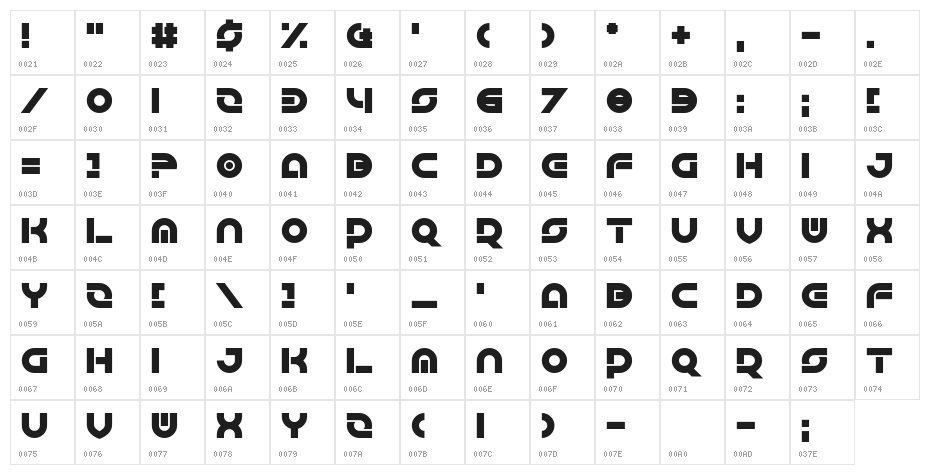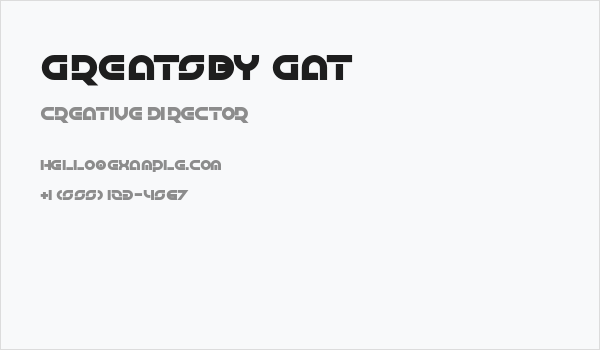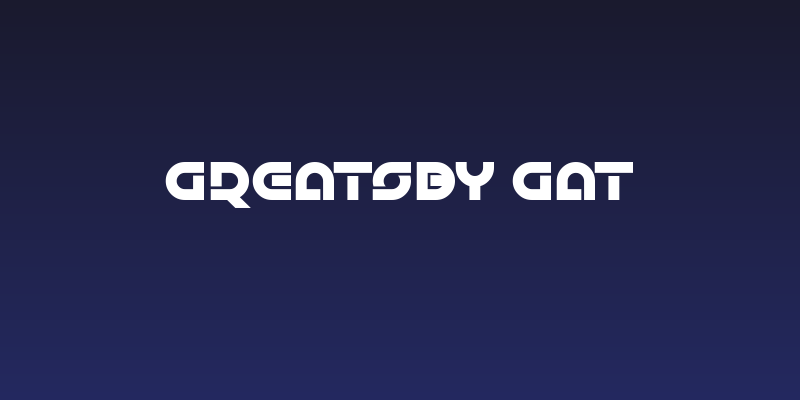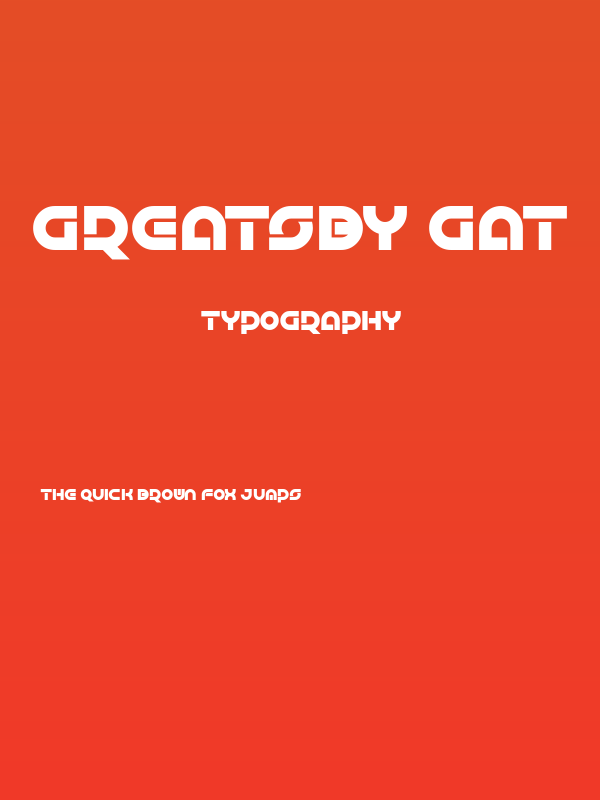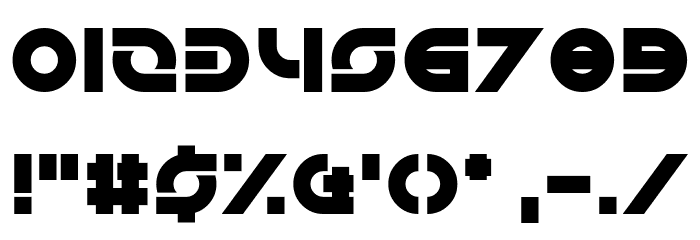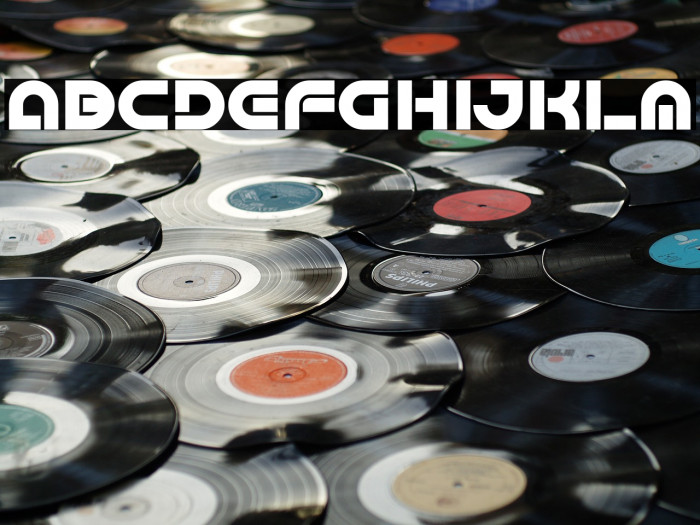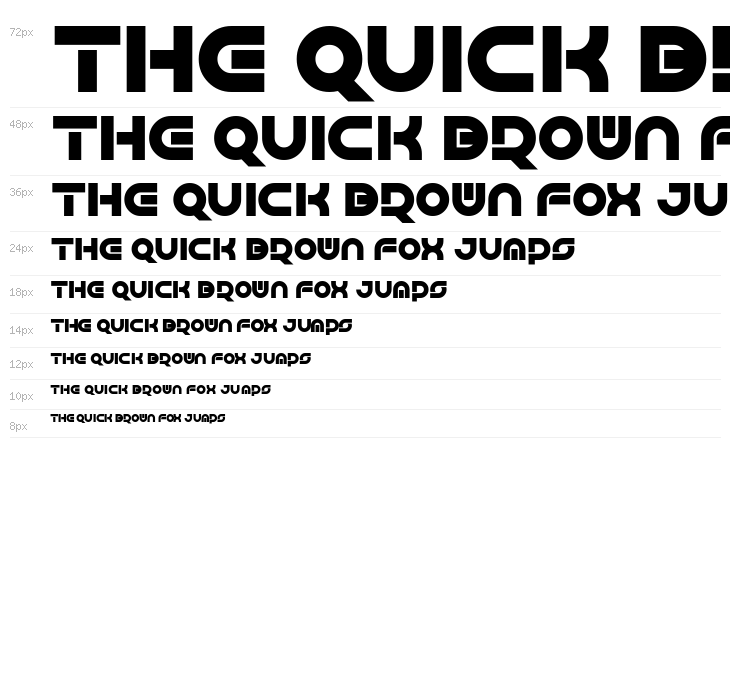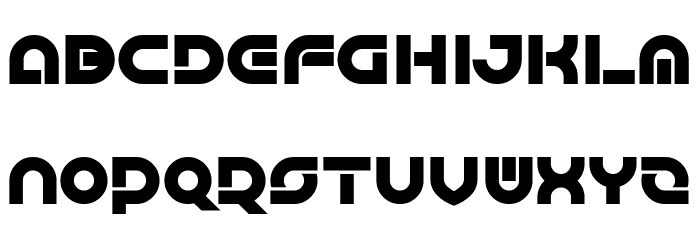
Greatsby Gat Font
This font features a bold and geometric design with a futuristic flair. Each character is constructed with a combination of straight lines and curves, creating a sense of movement and modernity. The uppercase and lowercase letters maintain a consistent style, with unique cutouts and angles that give the font a distinctive look. The numerals and special characters follow the same design principles, ensuring uniformity across all glyphs. Its boldness and unique style make it stand out, suitable for projects that require a strong visual impact.
| Proposed Projects | Ideal for branding, posters, headlines, and any design that requires a modern and bold aesthetic. |